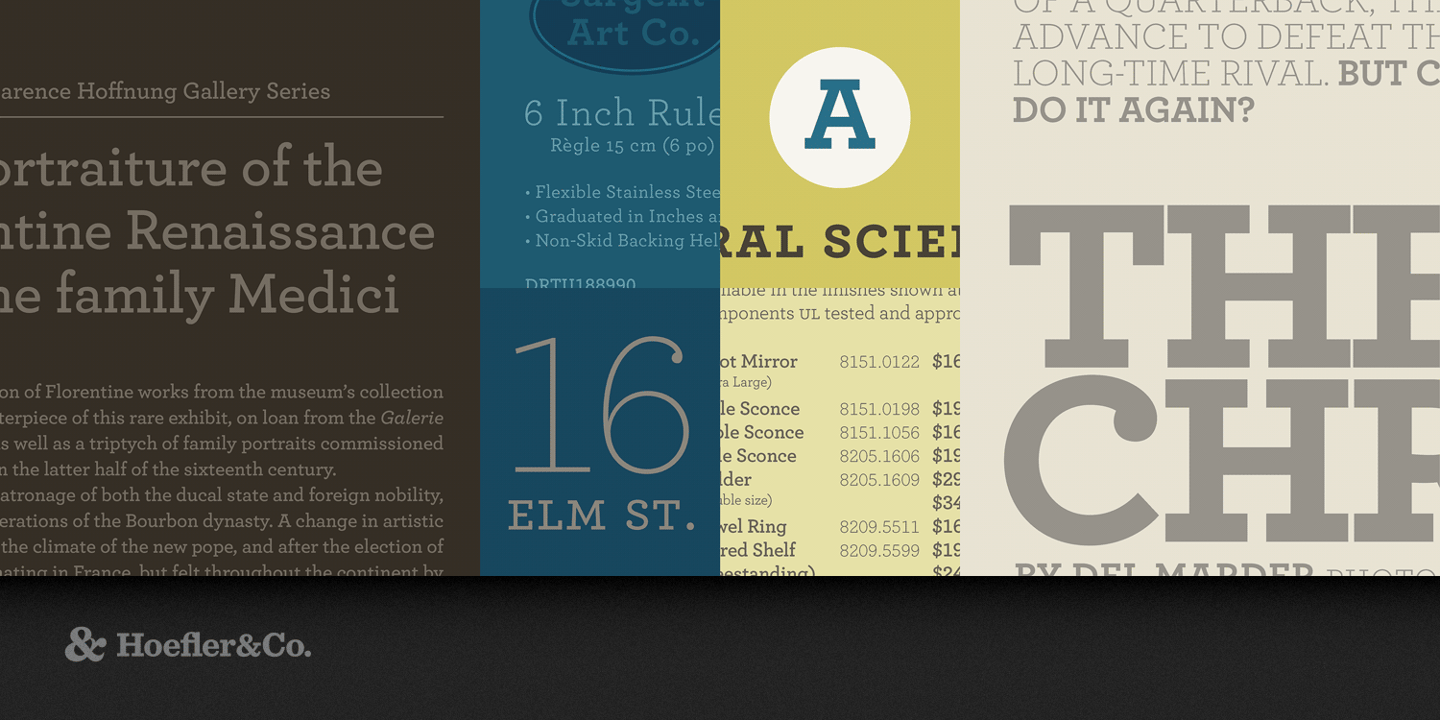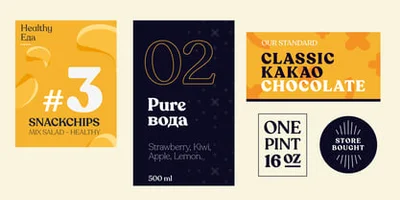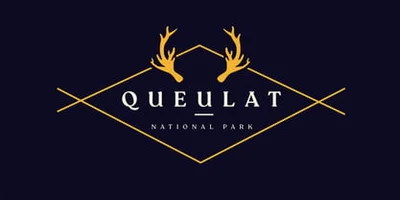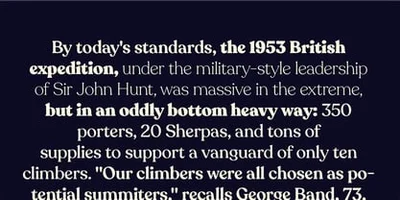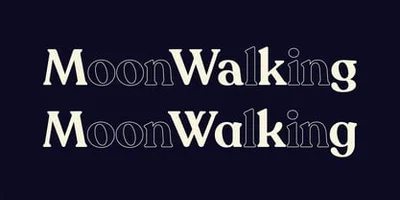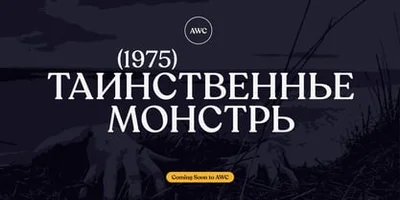
Archer vs Recoleta
Archer and Recoleta are both serif typefaces sharing a warm foundation. Where Archer leans slab serif, geometric, Recoleta brings retro, display. Compare which suits your Branding project.
63% Similarity
Design overlap:20%
Archer
Slab SerifGeometric
Warm
Recoleta
WarmRetro
Display
Archer
Recoleta
| Feature | Archer | Recoleta |
| Source | Hoefler&Co | Latinotype |
Recommended: Archer
- slab serif, geometric design character
- Suited for Editorial and Lifestyle
Consider: Recoleta
- retro, display design character
- Suited for Display and Retro